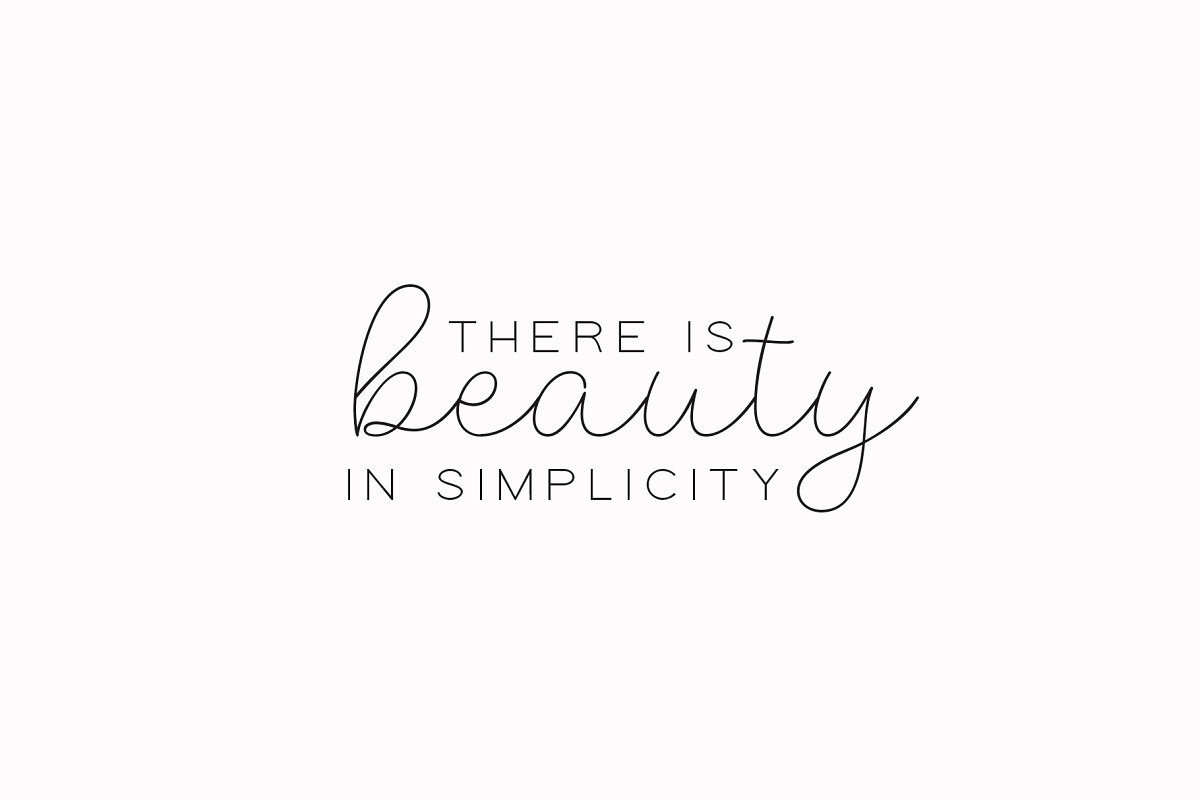
About the Harlots Modern Script Sans Font
Harlots is a modern font duo perfect for all of your design projects!This duo includes a thin, monoline script font and a bonus sans font (all capital), Harlots is perfect for branding, logos, wedding decor, invitations, shirts, stickers, craft projects, procreate and more!IncludesHarlots ScriptHarlots Sans*Most accent characters included with script font but bonus sans font is only standard characters at this time